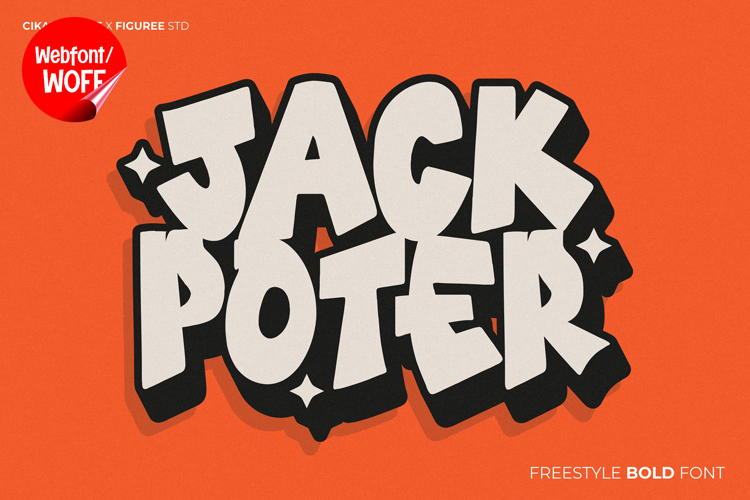
Jackpoter | Freestyle Bold Webfont for Creative Websites
Jackpoter is a freestyle bold webfont designed to bring strong personality and expressive energy into modern website design. Inspired by freehand lettering and spontaneous strokes, this font features bold shapes with a loose and dynamic structure. It is an excellent choice for projects that require a creative, confident, and visually striking typographic style.
Jackpoter includes a complete set of uppercase characters designed with freestyle bold forms. The letterforms are intentionally expressive, with variations in shape that create a sense of movement and individuality. This makes the font ideal for headlines, banners, hero sections, and featured content where a strong visual impact is essential. The bold structure helps establish clear hierarchy and draws immediate attention.
In addition to letters, the font includes numbers and punctuation, allowing flexible usage across various parts of a website. It works well for promotional content, branding text, event announcements, and call-to-action elements. Each character maintains a consistent freestyle style, ensuring a cohesive and unified visual identity throughout the layout.
With multilingual support, Jackpoter includes a wide range of accented characters, making it suitable for international websites and global audiences. This allows content to be displayed clearly across different languages while preserving the expressive and bold aesthetic.
The freestyle bold style of Jackpoter makes it especially suitable for creative portfolios, streetwear brands, music platforms, lifestyle websites, and digital campaigns. Its energetic and spontaneous look adds personality and uniqueness, helping websites stand out in competitive digital spaces. The freeform design also enhances branding that values creativity and originality.
Despite its expressive and artistic appearance, Jackpoter is designed with readability in mind. The spacing and proportions are carefully balanced to ensure clarity, particularly in display sizes. This makes it effective for impactful headings and short content elements where both style and usability are important.
Jackpoter is a webfont that combines bold freestyle expression with modern digital performance. Its strong shapes, dynamic flow, and creative character create a distinctive typographic presence that enhances website design. For projects that require a bold, unique, and visually engaging font, Jackpoter offers a powerful and creative solution.